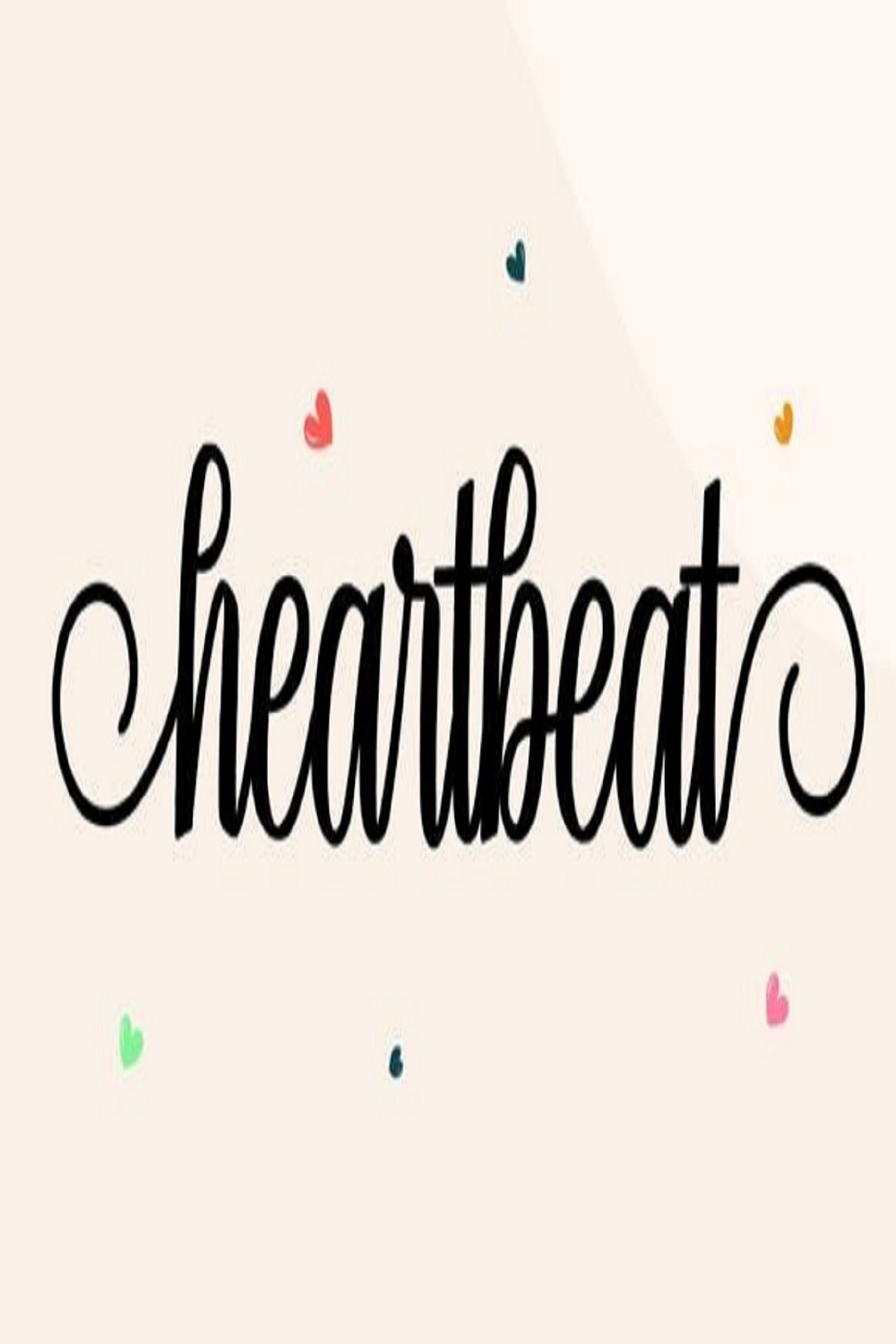
Heartbeat is a charming and unique quirky script handwritten font. Its playful curves and smooth strokes create a warm and inviting look, making it perfect for romantic and festive designs. Whether for Valentine’s Day, Christmas, New Year, or Easter, this font brings a delightful touch to any project.
Designed with elegance and creativity, Heartbeat features beginning swashes and ending swashes that add a flowing, artistic feel to every word. The gentle movement of each letter enhances the font’s beauty, making it ideal for crafts, Cricut projects, embroidery, and lettering. Its balanced design ensures readability while maintaining a whimsical appeal.
Heartbeat is a versatile typeface that complements a variety of themes, from winter and Thanksgiving to holiday celebrations and DIY crafts. Its smooth monoline strokes give a sense of harmony and sophistication, making it a great choice for greeting cards, invitations, branding, and seasonal decorations.